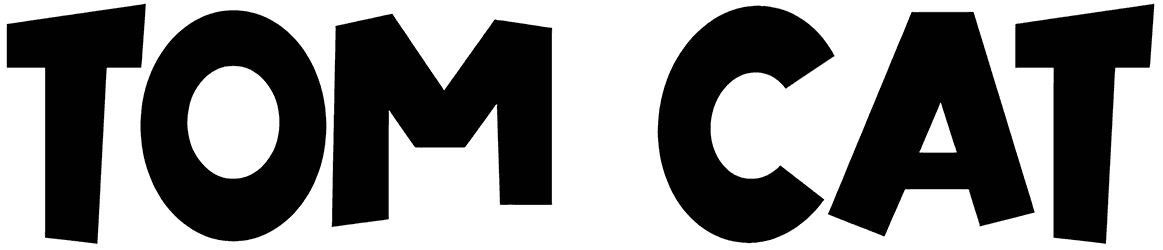
Tomcat Font
Tomcat is a playful and vibrant way to add personality to any design and can instantly transport you to a world of fun and imagination.
Whether you’re creating a logo, poster, or social media graphic, this well-chosen comic font can instantly transform your work from ordinary to extraordinary. So go ahead, be creative, and let the different styles of this fancy font provide new grounds for presenting your creative ideas.